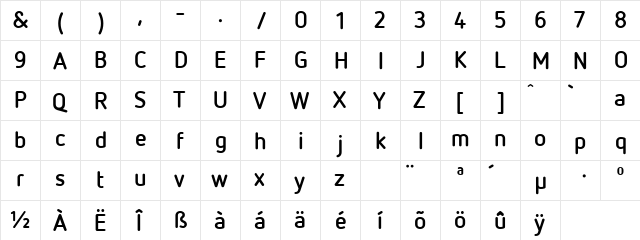
Netto OT Bold
Design Context for Netto OT Typeface
Netto OT takes a measured approach to typography — its balanced proportions and neutral character make it a reliable workhorse for both digital and print work. Its bold stroke weight gives it real presence on the page.